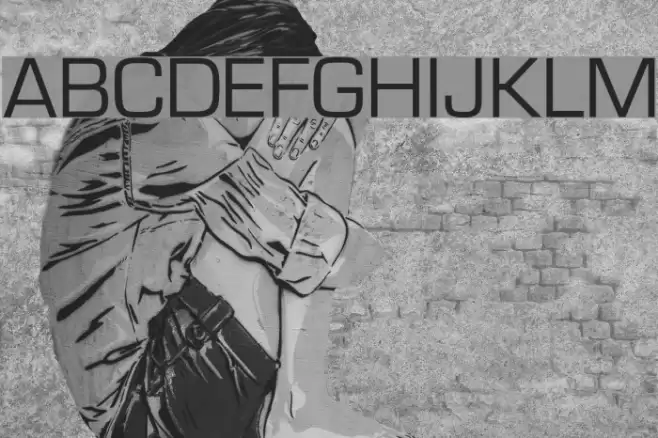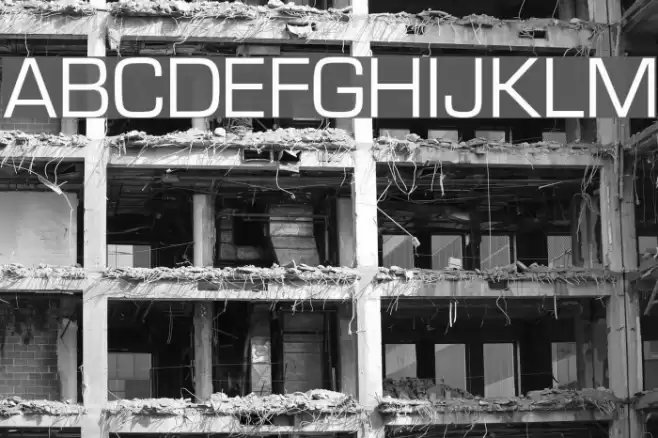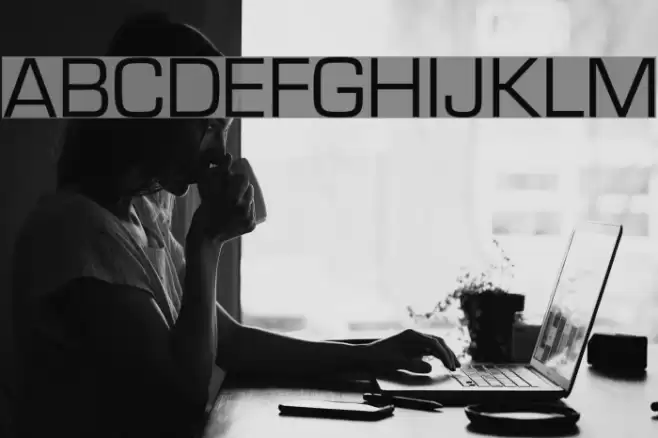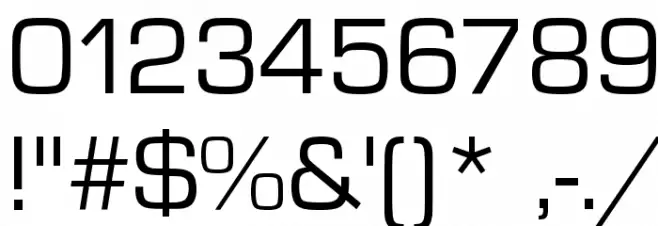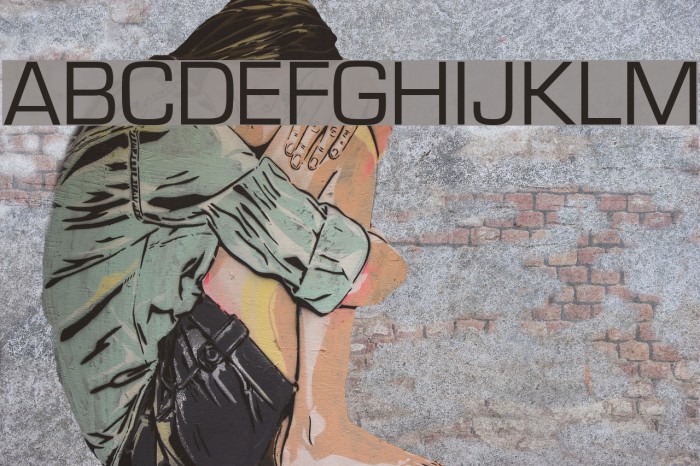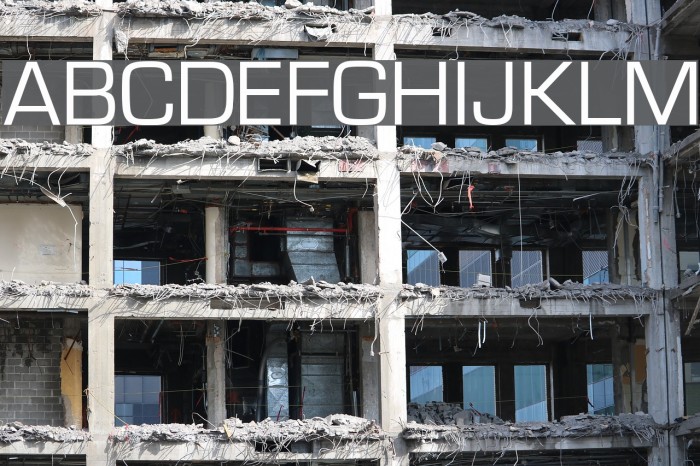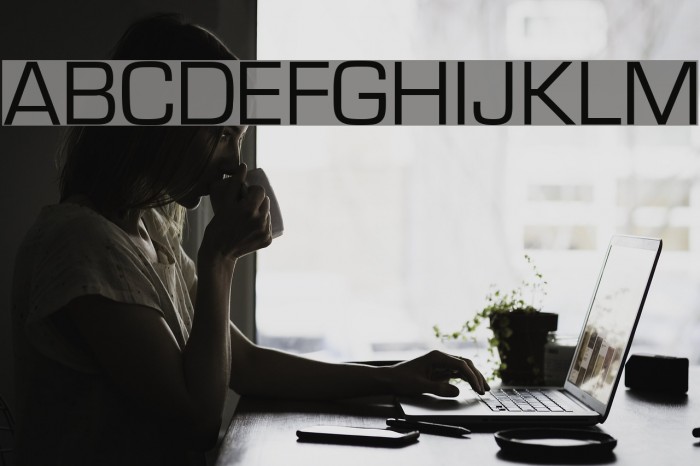
Eurostar Font
Eurostar Description
This typeface presents a clean and modern aesthetic with its geometric and uniform letterforms. The characters are well-balanced, featuring consistent stroke widths that convey a sense of stability and professionalism. The uppercase letters are tall and commanding, while the lowercase letters maintain a harmonious flow, making the font versatile for various applications. The numerals are clear and easily distinguishable, ensuring readability in both digital and print formats. Special characters are included, enhancing the font's utility for diverse design needs.
A modern, geometric sans-serif typeface with uniform stroke widths and versatile applications.
- Proposed Projects: Ideal for corporate branding, digital interfaces, signage, and editorial design.